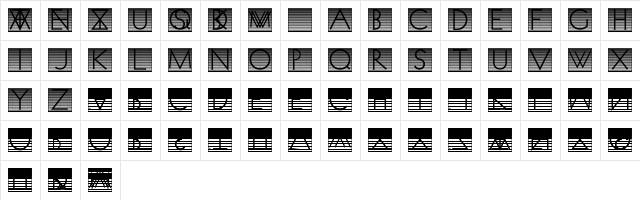
VenetianBlind Regular
Design Context for VenetianBlind Typeface
VenetianBlind is a composed and adaptable typeface that performs quietly and consistently across a wide range of design contexts.